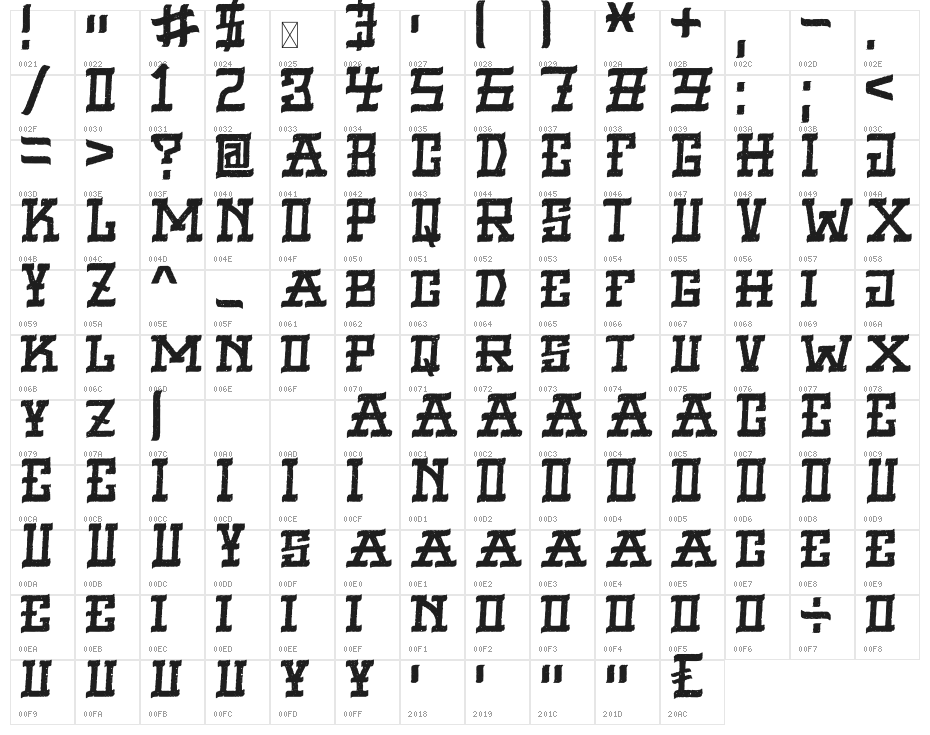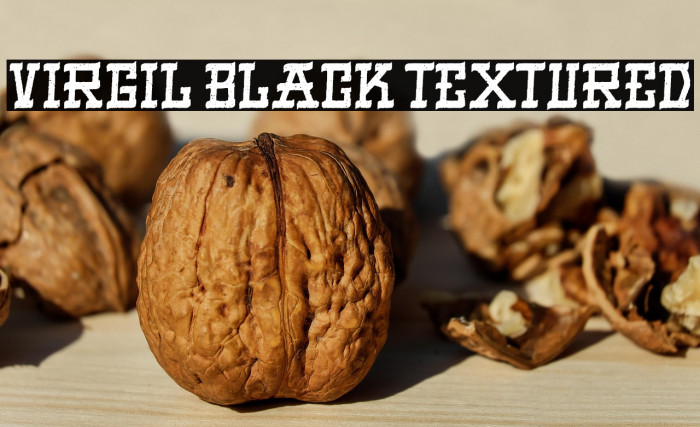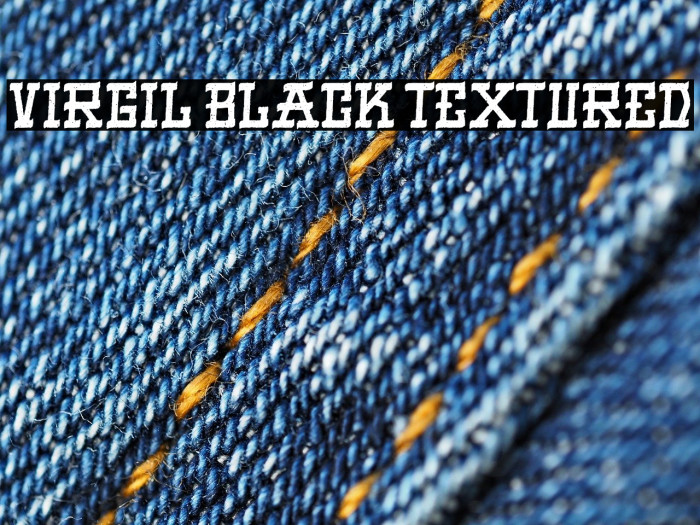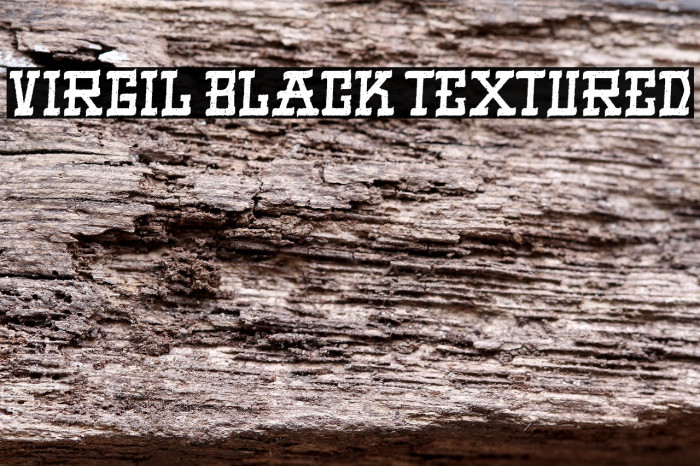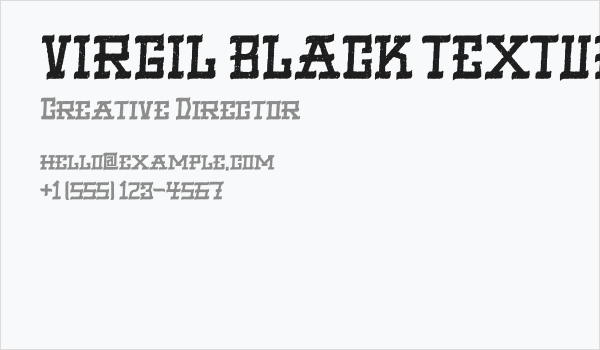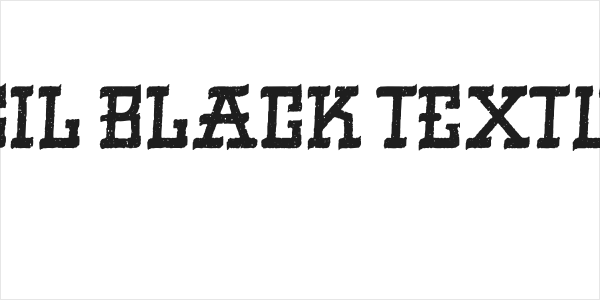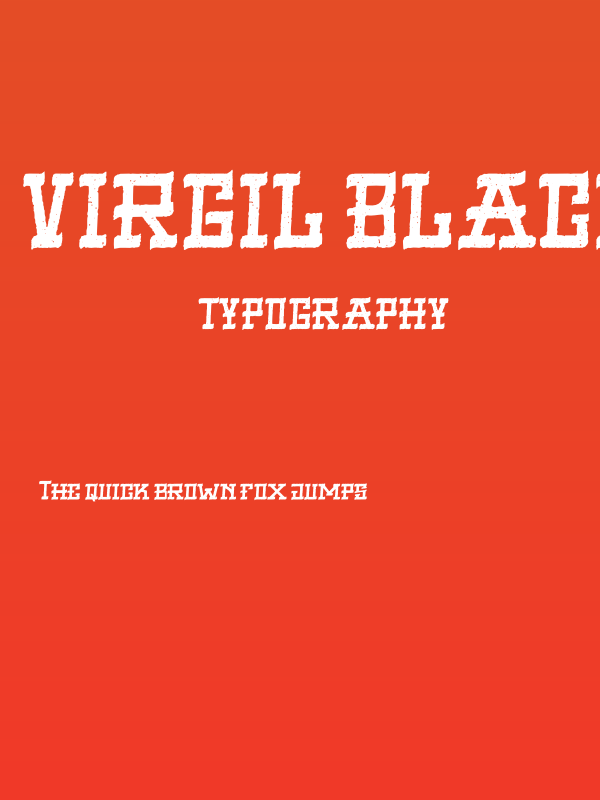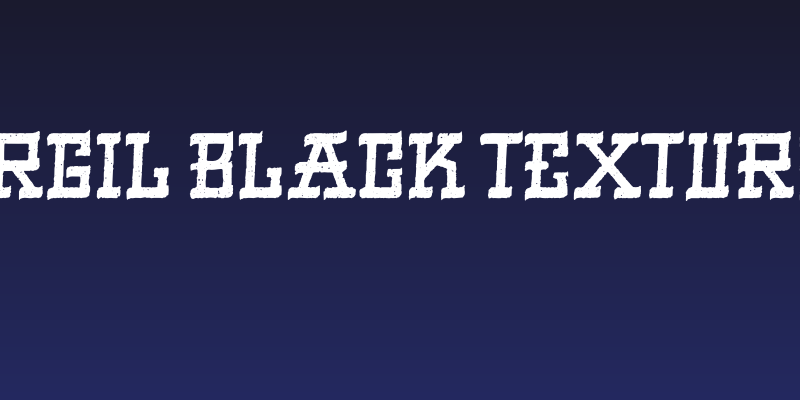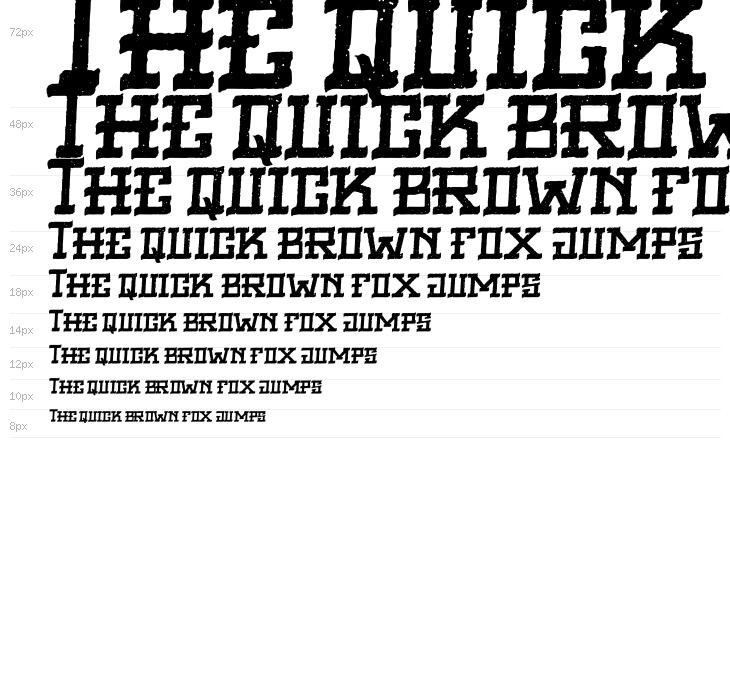
VIRGIL BLACK TEXTURED Font
VIRGIL BLACK TEXTURED Description
This font features a bold, textured appearance with a distinctive, rugged style. The characters are designed with a blocky, geometric structure, giving them a strong and impactful presence. The texture adds a vintage and worn effect, reminiscent of old printing techniques or distressed materials. The uppercase and lowercase letters maintain a consistent design, with sharp angles and a slightly condensed form. Numbers and special characters follow the same aesthetic, ensuring uniformity across all glyphs. This font is ideal for projects that require a bold statement or a retro, industrial feel.
| Proposed Projects | Ideal for posters, logos, branding, and packaging that require a bold, vintage look. |